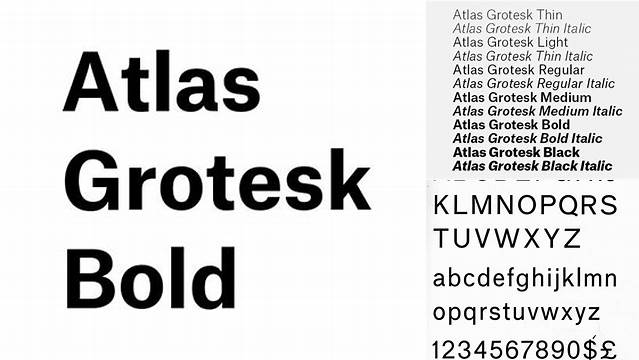
Atlas Grotesk font has emerged as a popular choice among designers and typographers, celebrated for its clean lines, versatility, and modern aesthetic. Whether you're working on branding projects, website designs, or editorial layouts, Atlas Grotesk can bring a touch of sophistication and clarity to your work. But before diving into its applications, let's address the burning question: where can you find an Atlas Grotesk font free download? Many websites offer font downloads, but it's crucial to ensure you're sourcing your fonts from reputable and legal providers. Downloading from unverified sources can expose you to malware or violate copyright laws, leading to potential legal issues and security risks. One reliable option is to check out reputable font foundries or online marketplaces that occasionally offer free trials or promotional downloads. Keep an eye on design resource websites and newsletters, as they often feature free font giveaways for a limited time. While a fully free version of Atlas Grotesk might be elusive due to licensing restrictions, exploring similar open-source alternatives or demo versions can be a great way to test the font's suitability for your projects. Remember, always review the licensing terms associated with any font download to understand the permitted usage and avoid copyright infringement. Once you've secured your Atlas Grotesk font file, installing it is a straightforward process. On Windows, simply right-click the font file and select "Install." On macOS, double-click the file and click "Install Font" in the Font Book application. After installation, the font will be available in your design software, ready to enhance your creative endeavors.
Understanding Atlas Grotesk: Features and Applications
Atlas Grotesk is more than just a visually appealing font; it’s a carefully crafted typeface designed for optimal readability and versatility. Its clean geometric structure and balanced letterforms make it suitable for a wide range of applications, from headlines and branding to body text and user interfaces. One of the key features of Atlas Grotesk is its extensive character set, which typically includes a variety of weights, styles, and language support. This allows designers to create a cohesive and harmonious typographic system across different media and platforms. The font's clarity and legibility make it an excellent choice for body text in both print and digital formats, ensuring that your message is communicated effectively. Additionally, Atlas Grotesk's bold and impactful letterforms can be used to create eye-catching headlines and titles, capturing the attention of your audience. In branding, Atlas Grotesk can help establish a strong visual identity for your brand. Its modern and sophisticated aesthetic conveys a sense of professionalism and trustworthiness, making it suitable for businesses in various industries. Whether you're designing a logo, creating marketing materials, or developing a website, Atlas Grotesk can help you create a consistent and memorable brand image. Furthermore, Atlas Grotesk's clean and minimalist design makes it a great choice for user interfaces (UI). Its legibility at various sizes ensures that users can easily read and interact with your website or application. The font's neutral appearance also allows it to blend seamlessly with other design elements, creating a cohesive and user-friendly experience. When using Atlas Grotesk, it's important to consider the overall design context and choose the appropriate weight and style for each application. Experiment with different typographic pairings to create visual interest and hierarchy. Pay attention to kerning and leading to optimize readability and ensure a polished and professional look.
Alternatives to Atlas Grotesk: Exploring Similar Fonts
If you're unable to find a free or affordable version of Atlas Grotesk, don't worry! There are plenty of excellent alternative fonts that offer a similar aesthetic and functionality. Exploring these alternatives can not only save you money but also introduce you to new and exciting typefaces that might be even better suited to your specific needs. One popular alternative to Atlas Grotesk is Montserrat. This open-source font features a clean and geometric design, reminiscent of early 20th-century urban typography. Montserrat is highly legible and versatile, making it suitable for both headlines and body text. It's also available in a variety of weights and styles, providing you with plenty of options for your design projects. Another great alternative is Lato. This sans-serif typeface has a warm and friendly feel, with semi-rounded details that add a touch of personality. Lato is highly readable and works well in a variety of contexts, from websites and mobile apps to print materials and presentations. It's also available under the SIL Open Font License, meaning you can use it for free in both personal and commercial projects. If you're looking for a more minimalist and modern alternative, consider Open Sans. This humanist sans-serif typeface is designed with legibility in mind, making it a great choice for body text and user interfaces. Open Sans has a neutral appearance that allows it to blend seamlessly with other design elements, creating a clean and professional look. For a bolder and more impactful alternative, check out Roboto. This sans-serif typeface has a mechanical skeleton and largely geometric forms, giving it a strong and confident presence. Roboto is highly versatile and works well in a variety of applications, from headlines and logos to body text and captions. When choosing an alternative to Atlas Grotesk, it's important to consider the specific requirements of your project and select a font that complements your overall design aesthetic. Experiment with different fonts and pairings to find the perfect fit for your needs. Don't be afraid to explore new and unconventional typefaces – you might be surprised at what you discover!
Tips for Using Atlas Grotesk and Similar Fonts Effectively
Once you've chosen Atlas Grotesk or a suitable alternative, it's essential to use it effectively to create visually appealing and engaging designs. Here are some tips to help you make the most of your chosen typeface: Firstly, prioritize legibility. No matter how beautiful a font is, it's useless if your audience can't read it. Choose a font weight and size that is appropriate for the context and ensure that there is sufficient contrast between the text and the background. Pay attention to kerning and leading to optimize readability and avoid overcrowding. Secondly, establish a clear visual hierarchy. Use different font sizes, weights, and styles to create a clear distinction between headlines, subheadings, and body text. This will help guide the reader's eye and make your content more accessible. Use bold or italic text sparingly to emphasize key words and phrases. Thirdly, consider the overall design context. Choose a font that complements your overall design aesthetic and reinforces your brand identity. Avoid using too many different fonts in a single design, as this can create a cluttered and unprofessional look. Stick to a maximum of two or three fonts and use them consistently throughout your design. Fourthly, experiment with typographic pairings. Try combining Atlas Grotesk or its alternative with other fonts to create visual interest and contrast. A classic pairing is a sans-serif font like Atlas Grotesk with a serif font for body text. However, don't be afraid to experiment with unconventional pairings to create a unique and memorable look. Fifthly, pay attention to spacing and alignment. Proper spacing and alignment can greatly enhance the readability and visual appeal of your designs. Use whitespace effectively to create a sense of balance and harmony. Align your text and elements consistently to create a clean and professional look. By following these tips, you can use Atlas Grotesk and similar fonts effectively to create stunning and engaging designs that communicate your message clearly and effectively.
Conclusion: Mastering Typography with Atlas Grotesk
In conclusion, Atlas Grotesk is a versatile and modern font that can elevate your design projects. While a fully free version may be hard to come by, exploring alternatives and understanding effective typography principles can help you achieve similar results. Remember to prioritize legibility, establish visual hierarchy, and consider the overall design context when choosing and using fonts. With the right approach, you can master typography and create visually stunning designs that captivate your audience. Whether you stick with Atlas Grotesk, find a suitable alternative, or experiment with different typefaces, the key is to understand the principles of typography and apply them consistently. So go ahead, explore the world of fonts, and unleash your creativity! By following these guidelines and practicing regularly, you'll be well on your way to becoming a typography master. And who knows, you might even discover your new favorite font along the way! So keep experimenting, keep learning, and keep creating amazing designs. The world of typography is vast and exciting, and there's always something new to discover. Happy designing, guys!